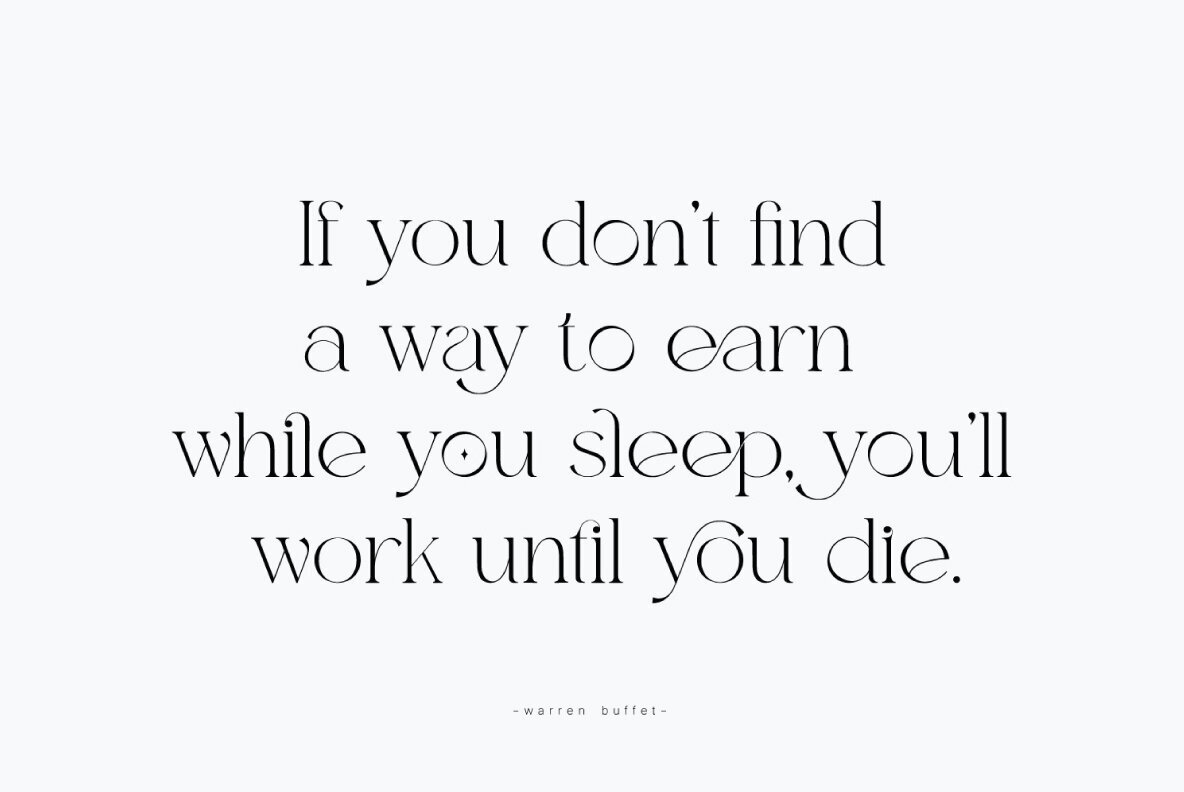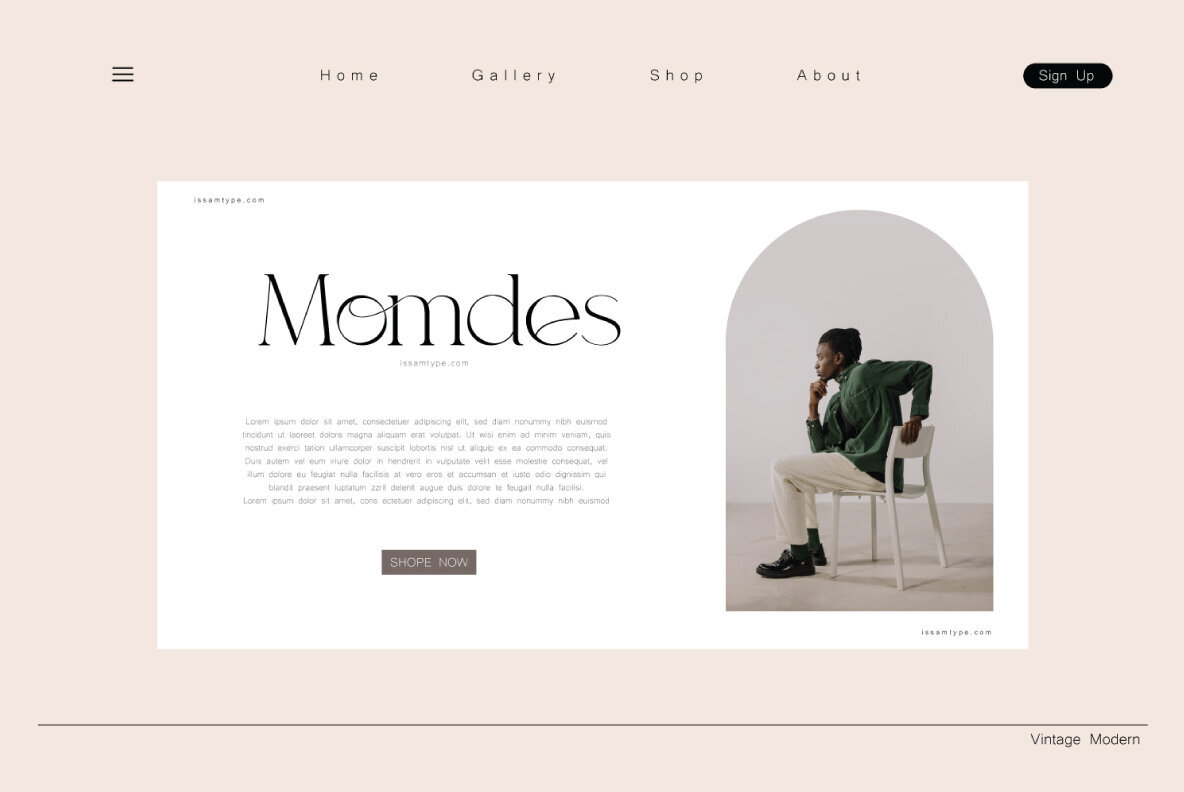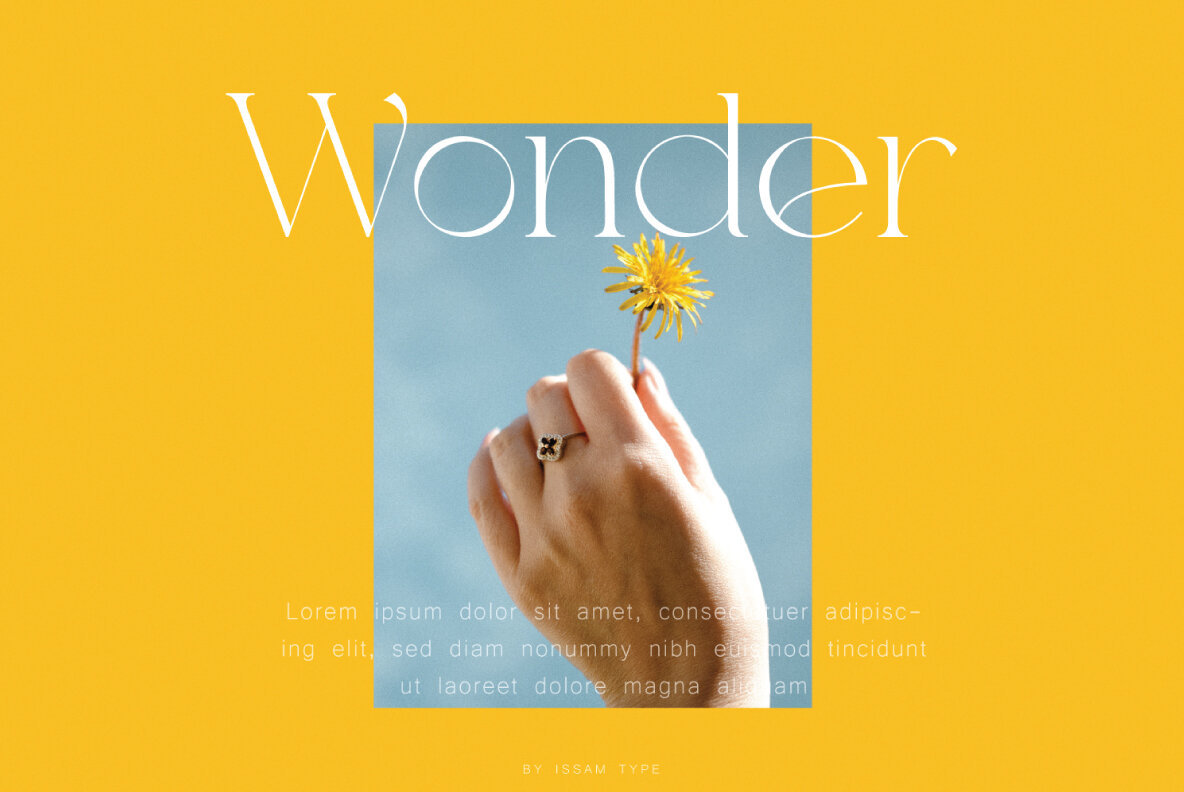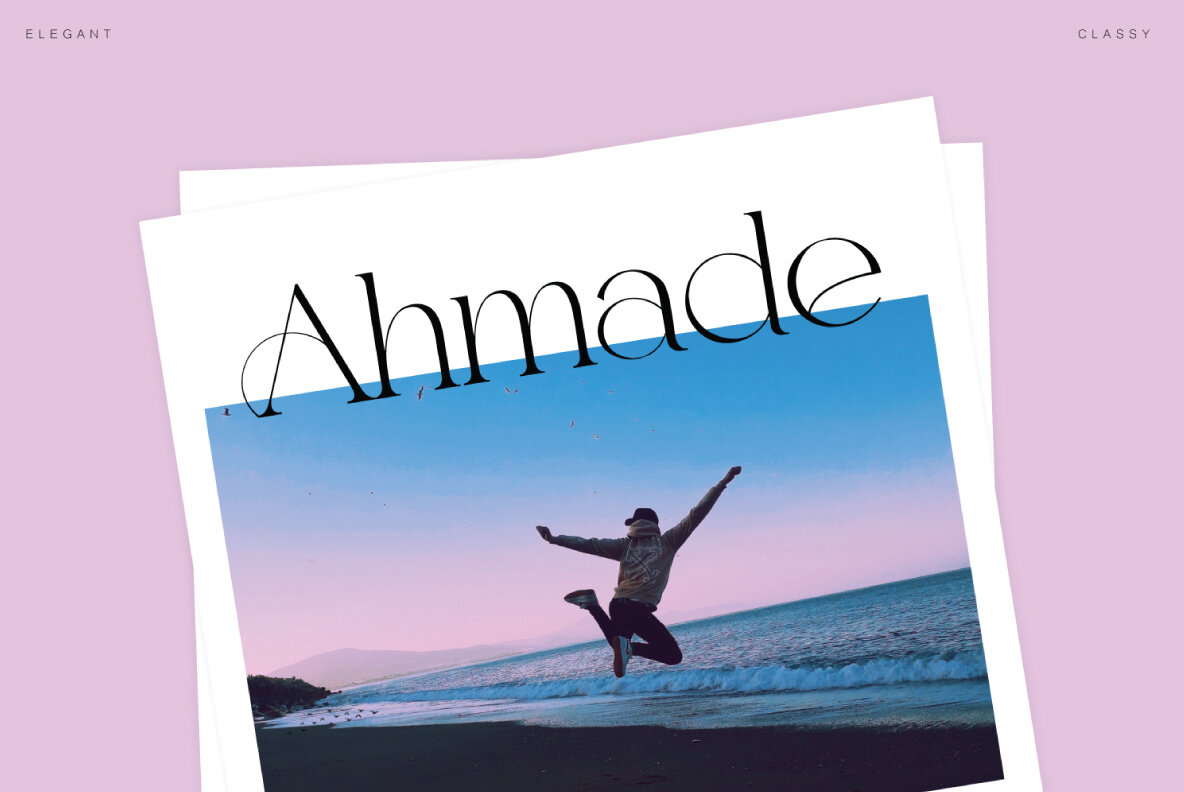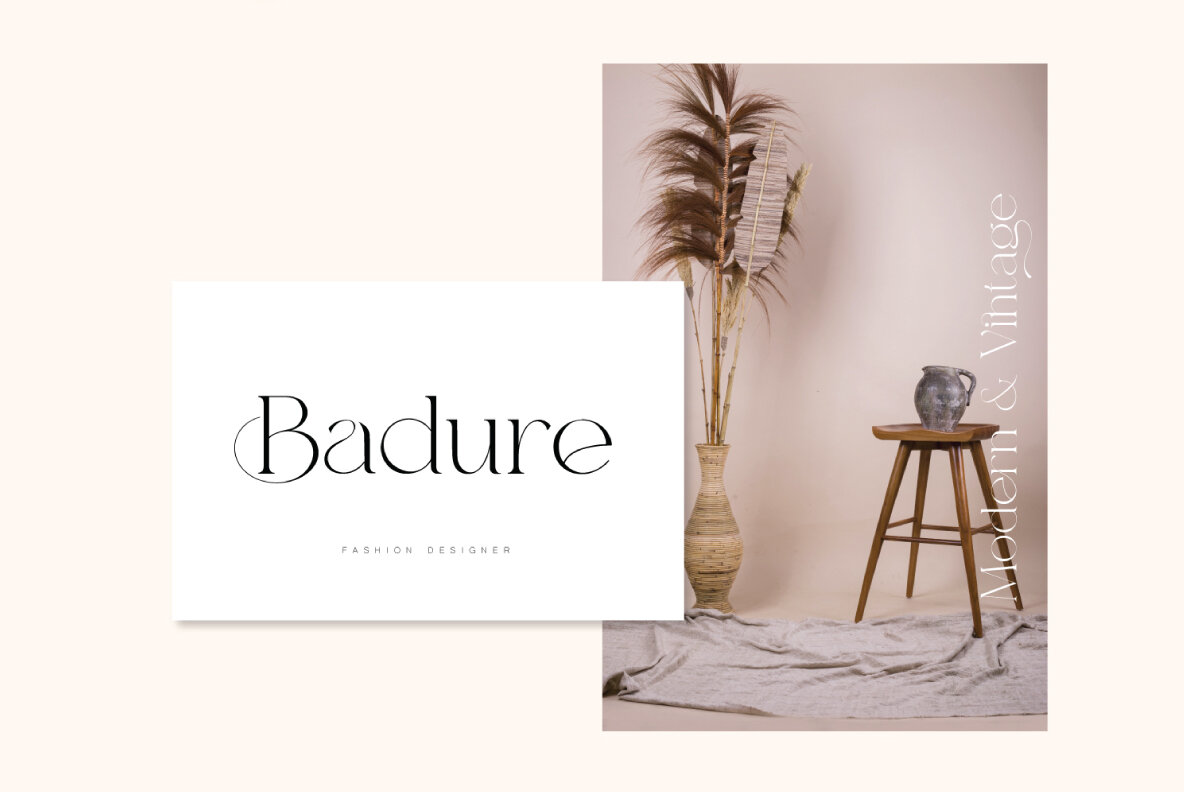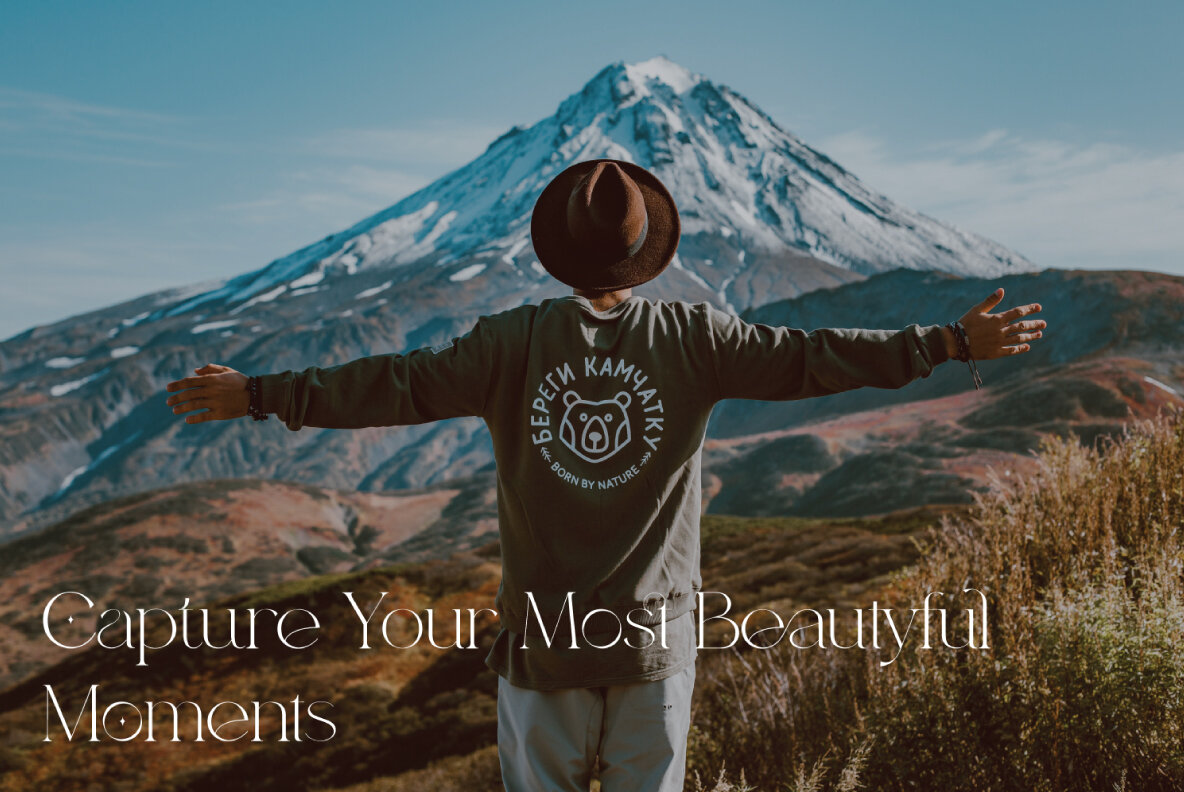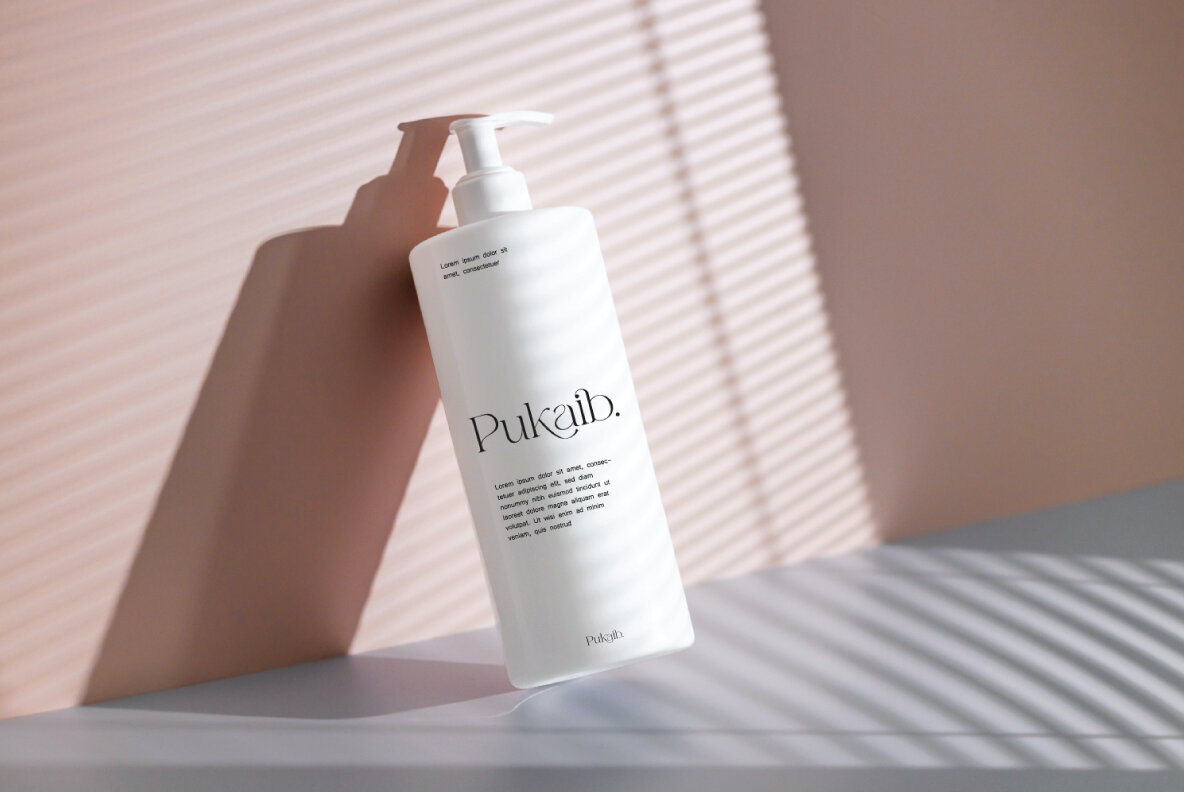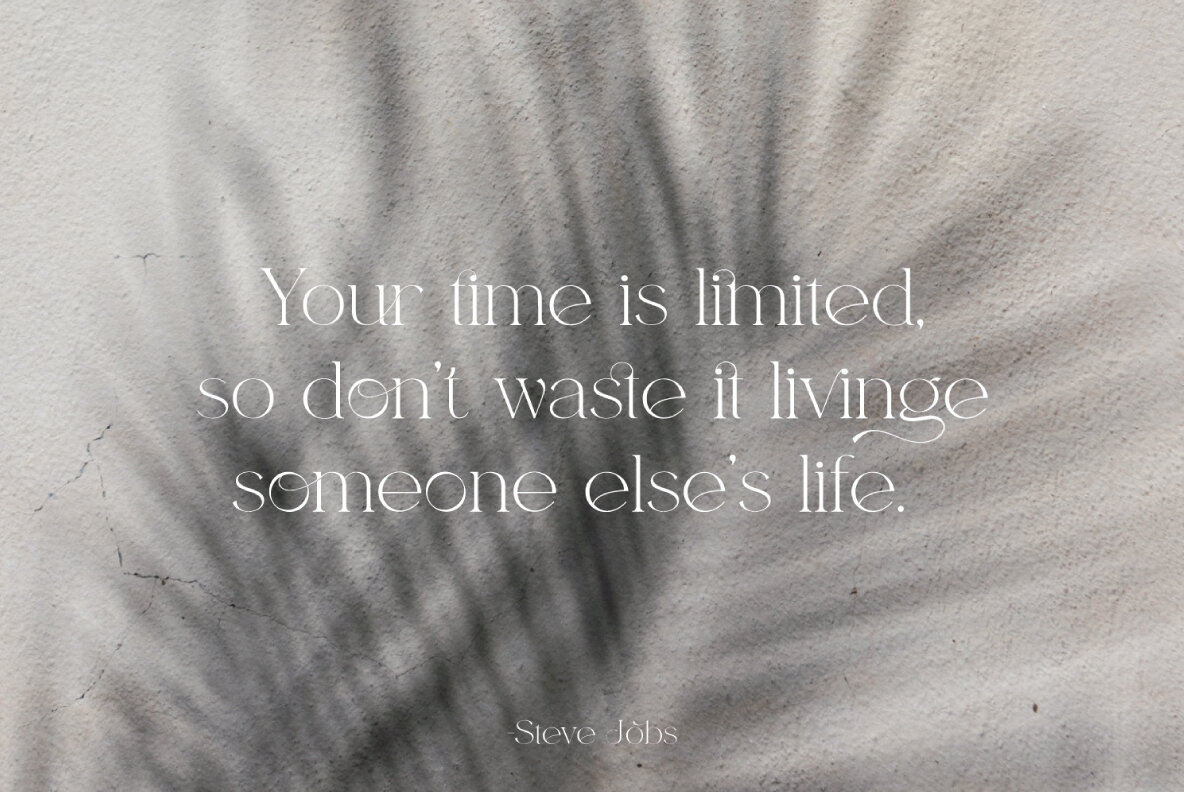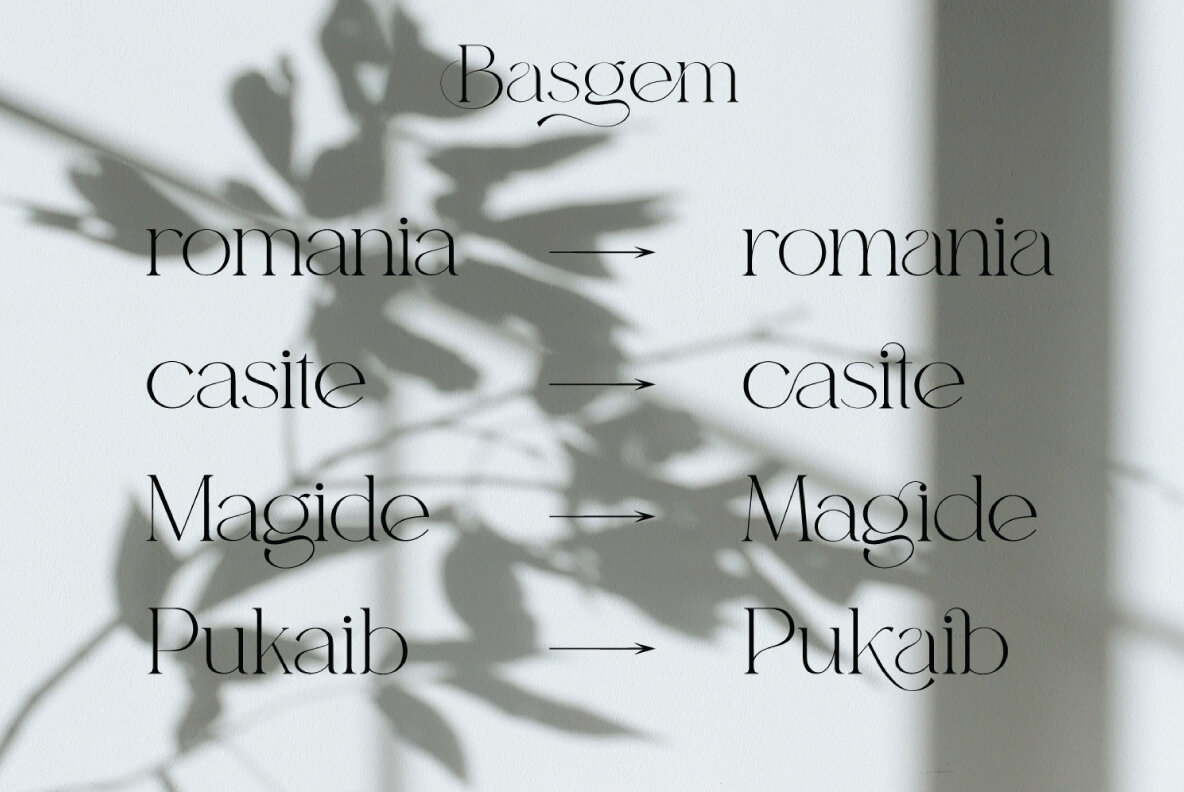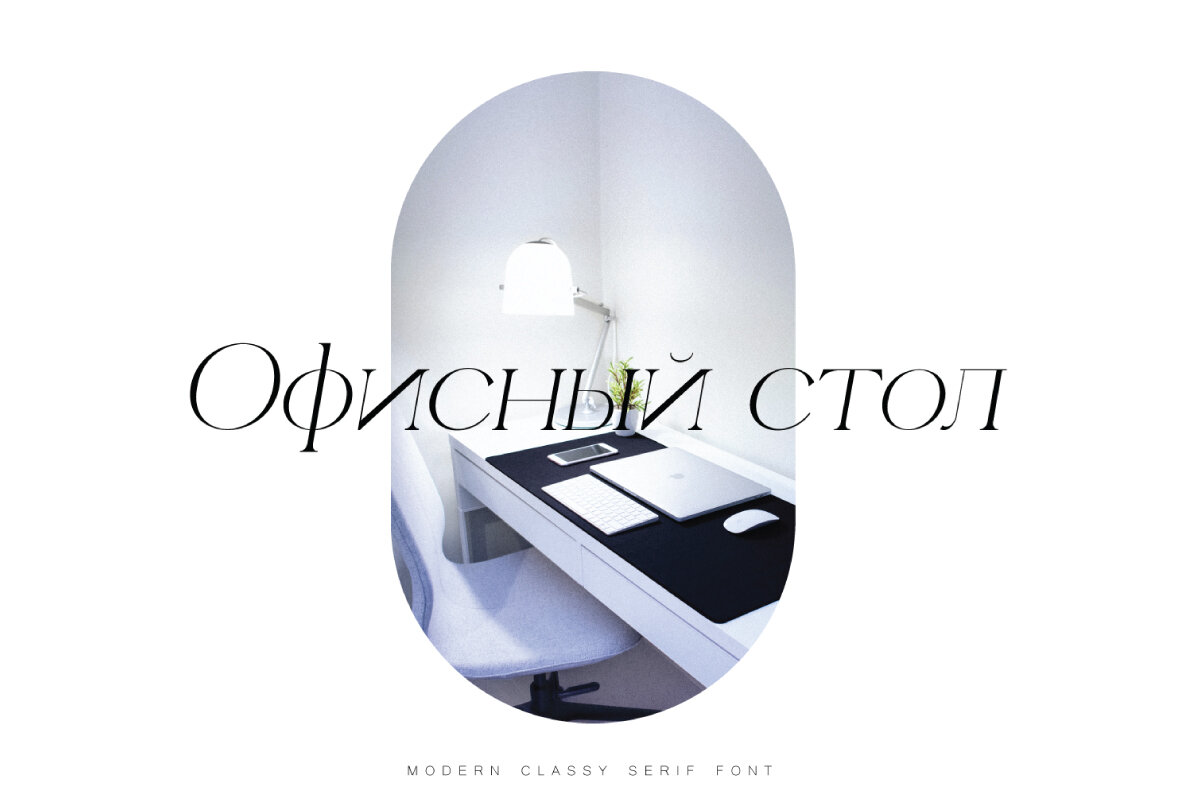
Basgem Font
Basgem Regular
Basgem Italic
Basgem condensed
Basgem CondensedItalic
Basgem is a cool and fancy typeface that comes with joining ligatures for an even more unique style. This awesome font would be perfect in logos, invitations or watermarks - you name it!